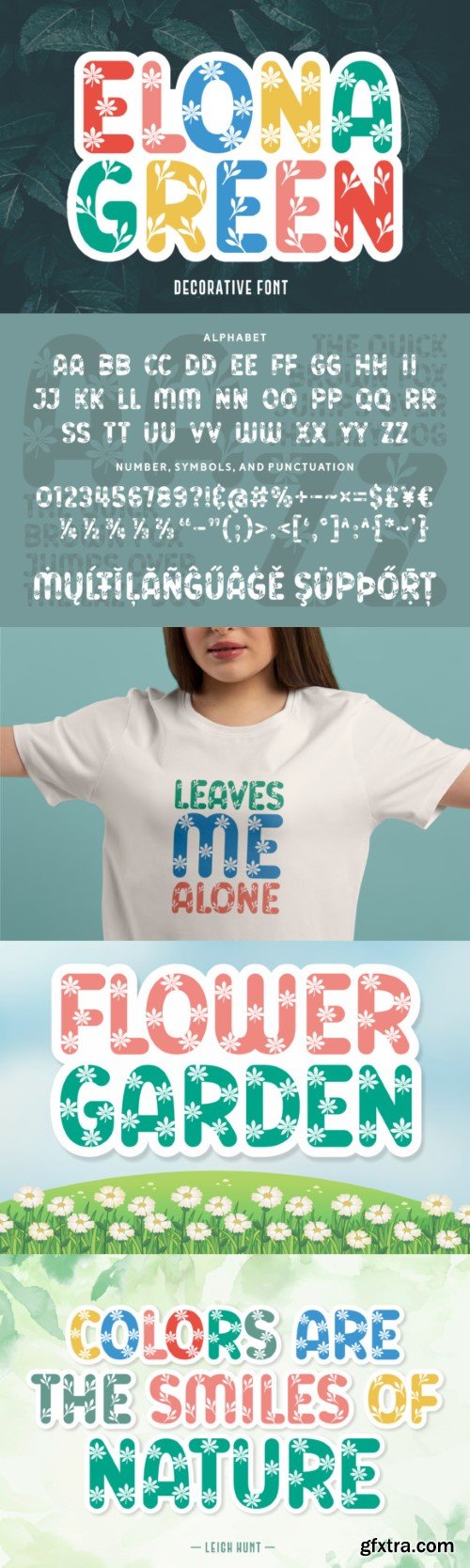
雍娜绿字体
Imagine this beautiful decorative font Elona Green with bright colors! An outstanding result for your creative projects and designs.
This typeface features nature-inspired characters with flowers and leaves. Use it on titles, greeting cards, t-shirts, magazines, books, movies, art prints, etc.